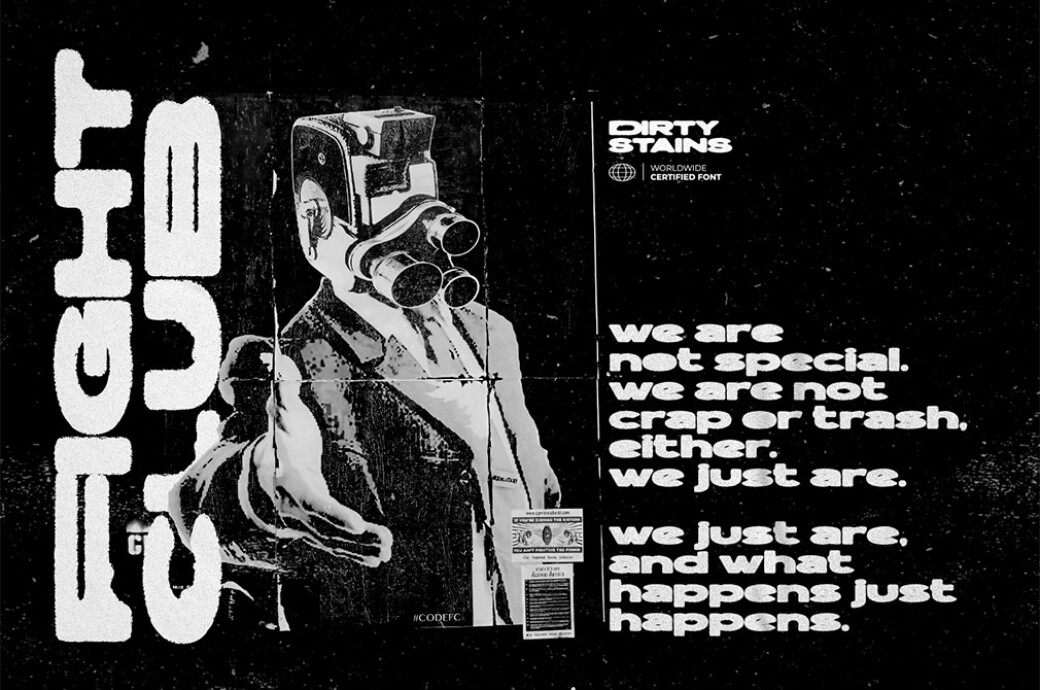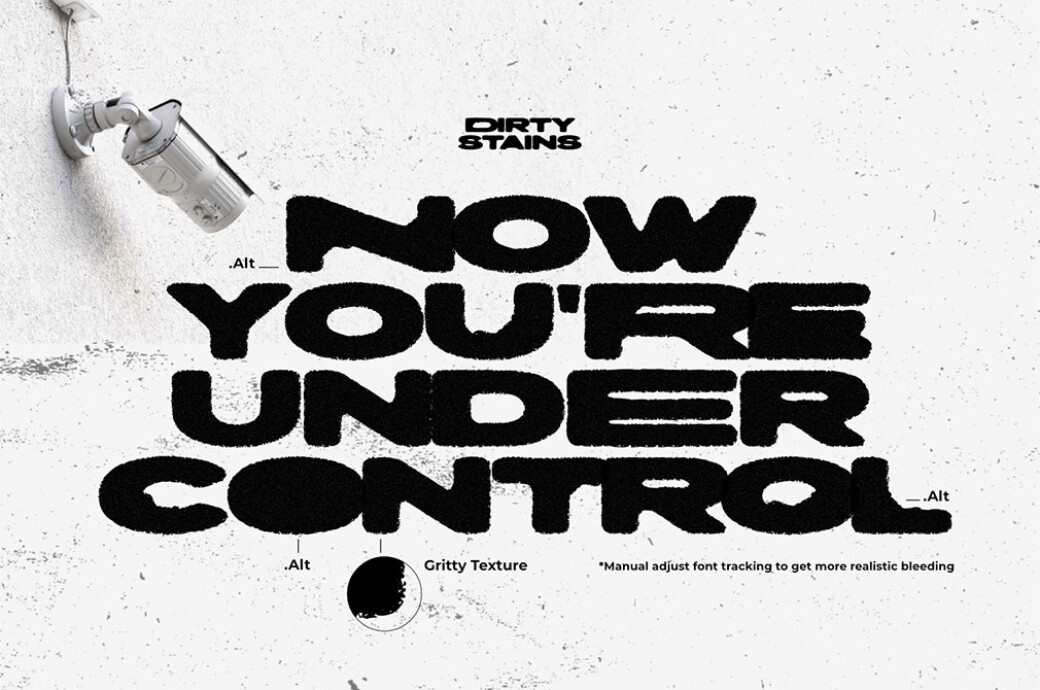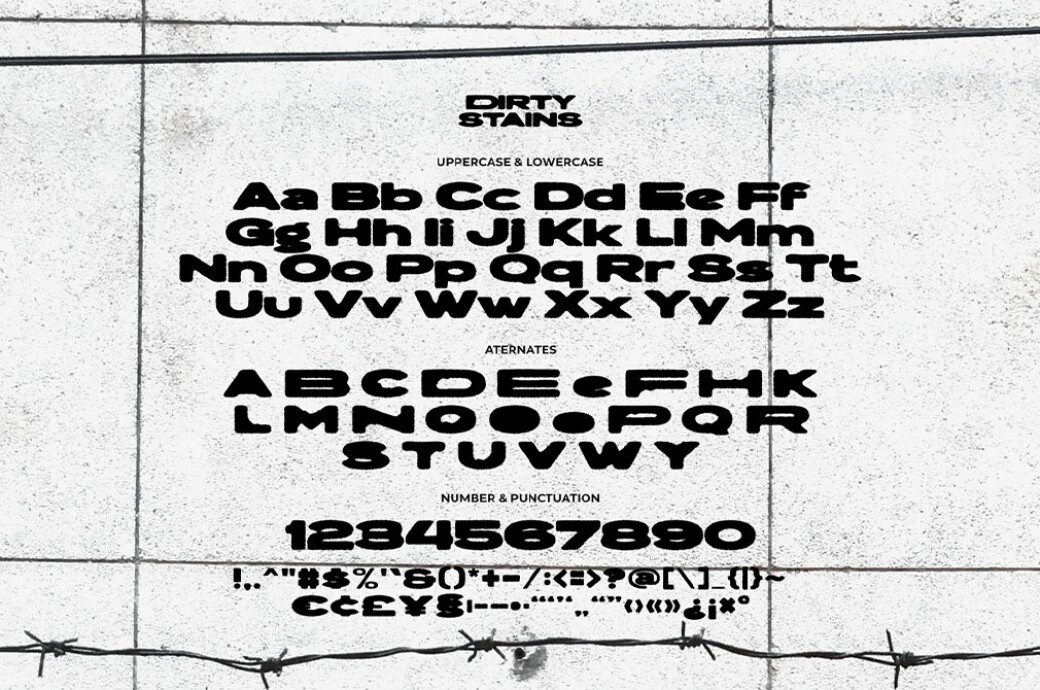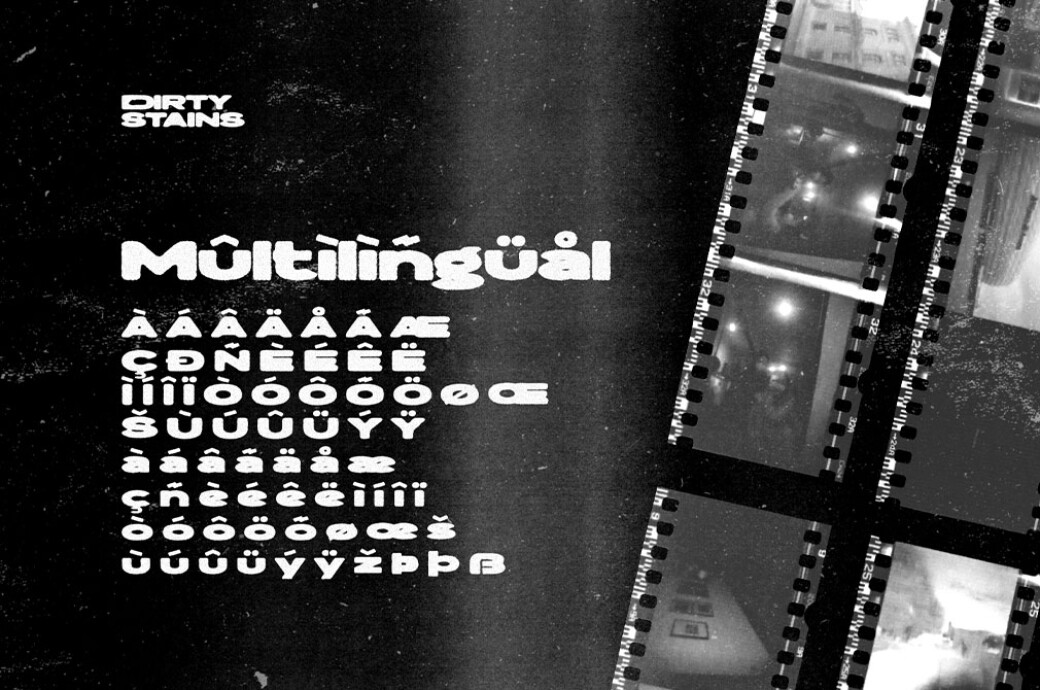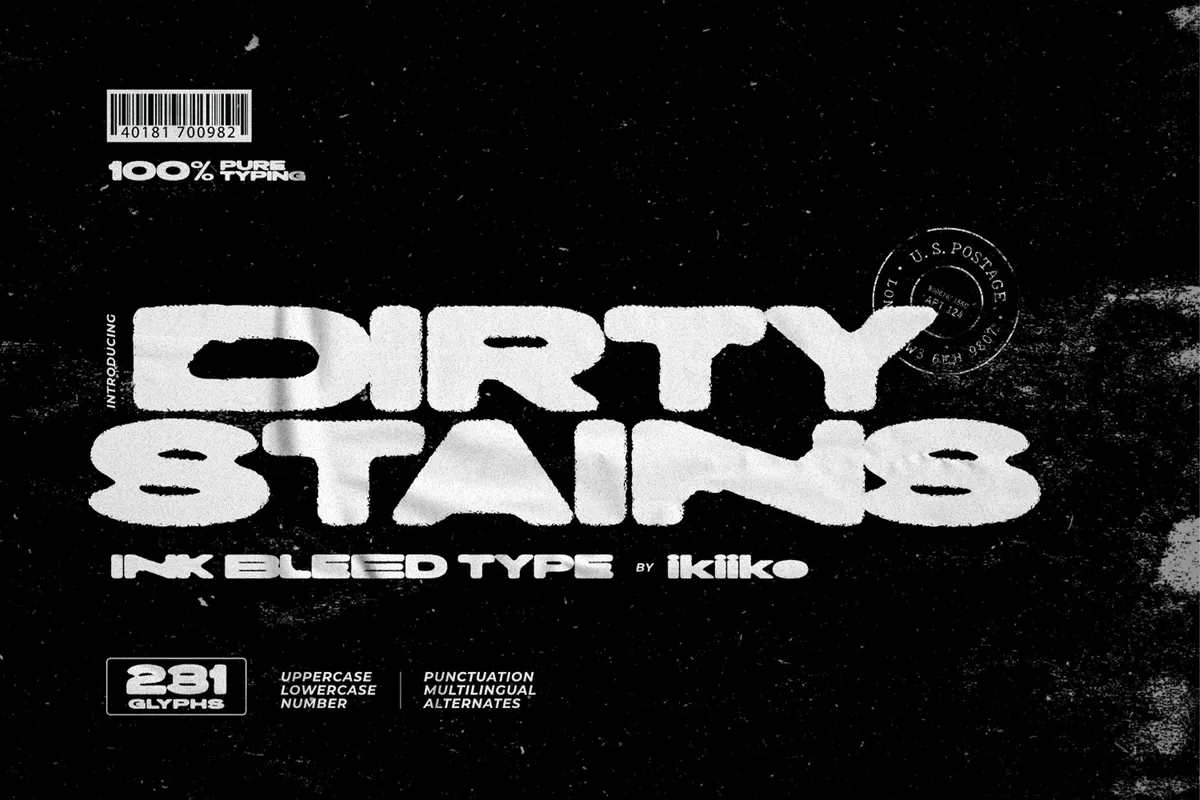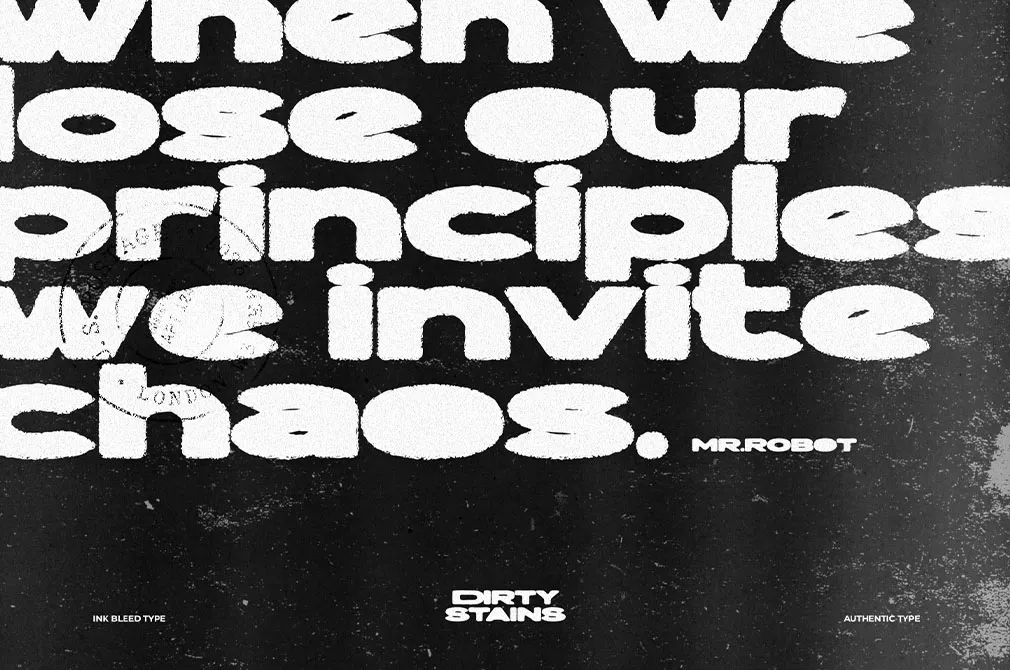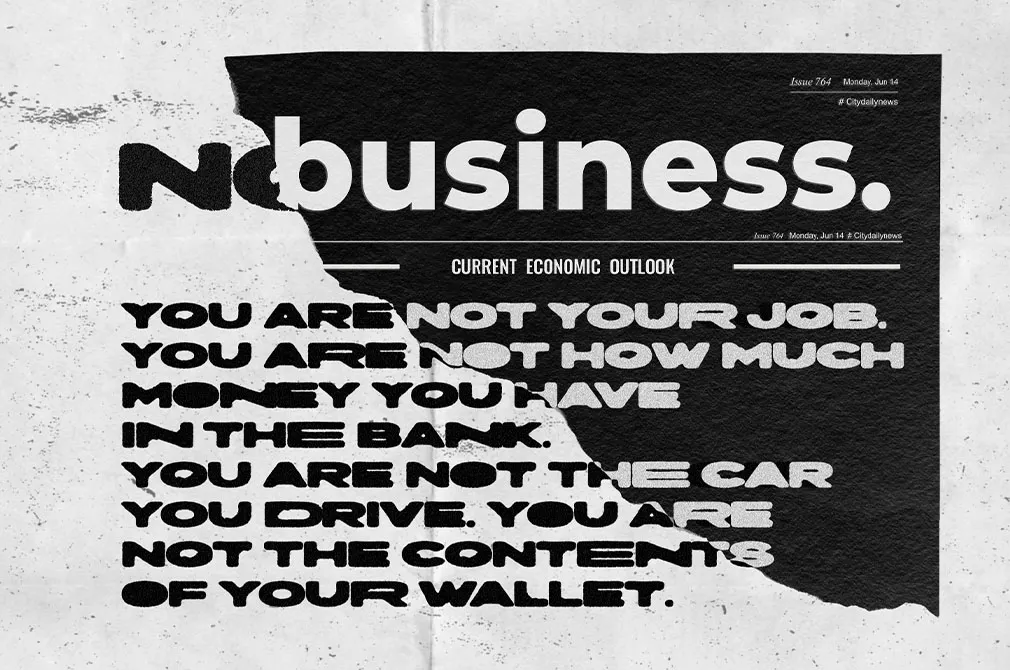
Dirty Stains — Ink Bleed Font
Dirty Stains-Ink Bleed Font
Embrace the fusion of ink and structure with Dirty Stains. This strong sans-serif typeface provides an emotional experience rather than just letters on a page.Each character of Dirty Stains exudes the wild energy of city streets, and the ink spill effect blurs the distinction between chaos and creativity. Its rough forms bring you to the center of street culture while encapsulating the spirit of resistance and rebellion. The font includes a complete character set, international characters, and alternates.